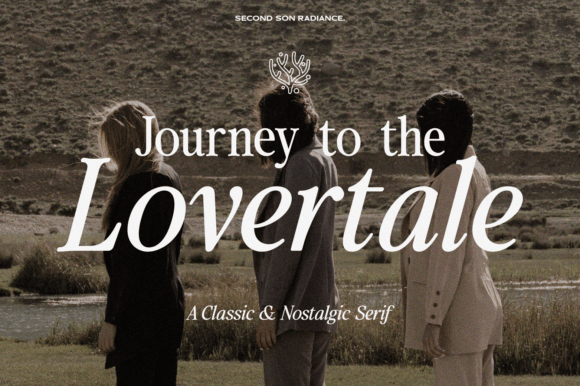
Introducing Lovertale Font - The Epitome of Timeless Charm and Modernity in Serif Typography
Lovertale Font, a creation of Second Son Radiance, stands as a testament to the enduring allure of classic serif fonts. Its carefully crafted letterforms exude both elegance and readability, making it an ideal choice for a wide range of projects. As a user, you'll find Lovertale Font to be a versatile and reliable companion in your creative endeavors.
Whether you're looking to craft a luxurious logo, design a classy editorial layout, or create captivating promotional materials, Lovertale Font will elevate your work with its timeless beauty and modern sensibility. Its refined aesthetic is tailor-made for industries such as fashion, cosmetics, and art, adding a touch of sophistication and allure to your designs.
Lovertale Font's versatility extends beyond its visual appeal. With its exceptional readability, it ensures that your message is conveyed clearly and effectively, whether you're using it for body text or eye-catching headlines. Its retro-inspired design adds a touch of nostalgia and charm, evoking a sense of familiarity and warmth among your audience.
With Lovertale Font at your disposal, you'll have a font that exudes timeless elegance, versatile functionality, and wide-ranging appeal. Its ability to seamlessly blend classic and modern elements makes it an essential tool for any designer or creative professional seeking to leave a lasting impression.